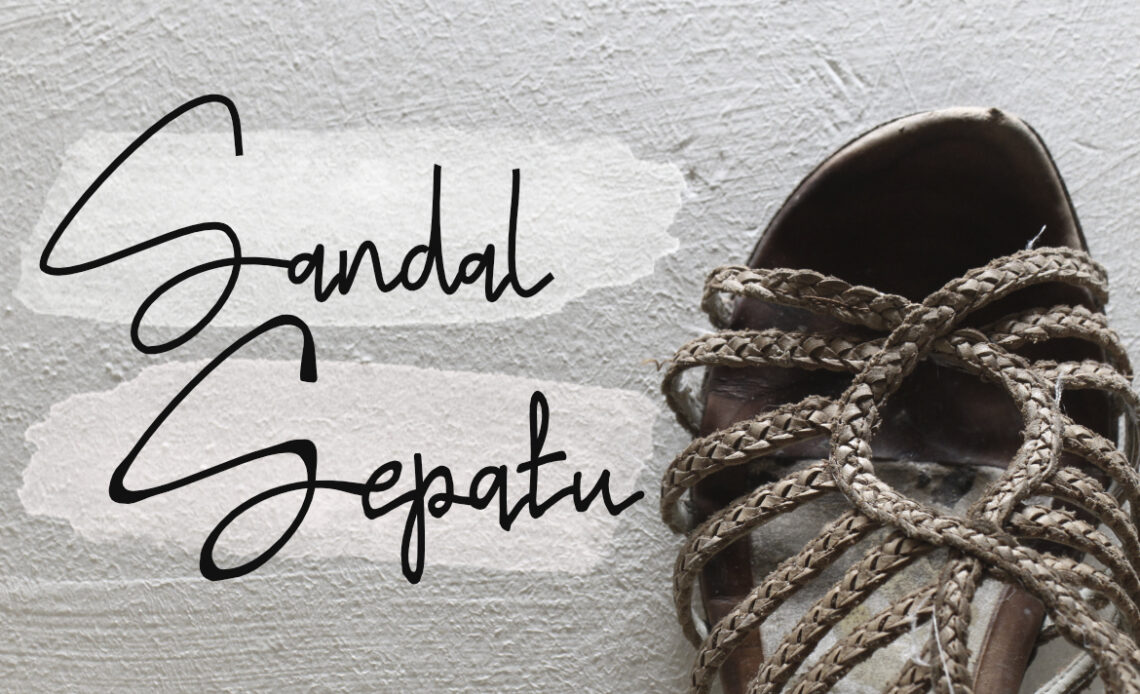
Dive into the world of Sandal Sepatu, where calligraphy and cursive dance together to create a symphony of elegance. This enchanting script font duo captivates hearts with its organic charm and friendly feel. The lines flow seamlessly, like the graceful strokes of a skilled calligrapher, transforming words into works of art.
Sandal Sepatu is a versatile font family that adapts effortlessly to a wide range of design styles. Embark on a creative journey, from editorial designs that demand sophistication to earthy designs that evoke a connection with nature. This font family is your trusted companion, adding a touch of magic to every project.
Visualize your designs adorned with Sandal Sepatu's enchanting curves. Words leap off the page, captivating readers with their undeniable allure. Logos, branding, and social media posts come alive, exuding an aura of warmth and approachability. Let your imagination soar as you craft designs that resonate with audiences.
Sandal Sepatu is not just a font; it's an invitation to unleash your creativity. It's a tool that empowers you to create designs that speak to the soul. Say goodbye to mundane fonts and embrace the extraordinary with Sandal Sepatu.
Don't settle for ordinary when you can elevate your designs with Sandal Sepatu. Embrace the beauty of organic lines and friendly curves. Let your projects blossom with a touch of elegance that will leave a lasting impression.